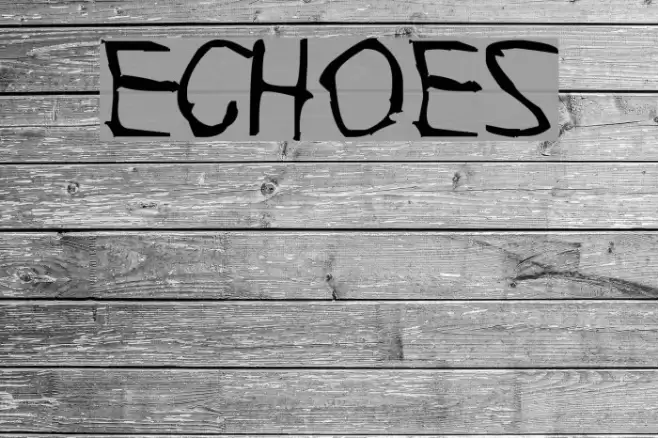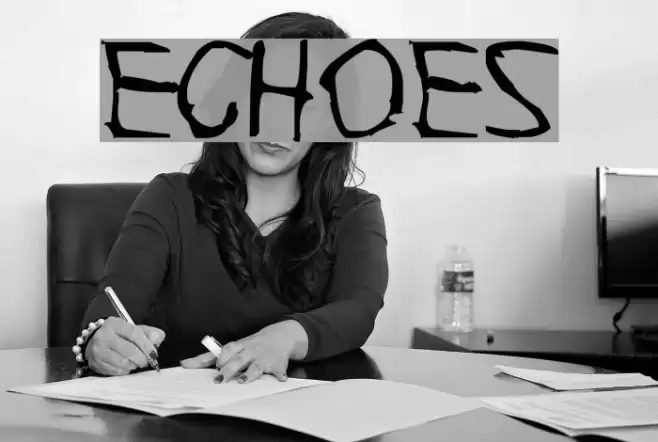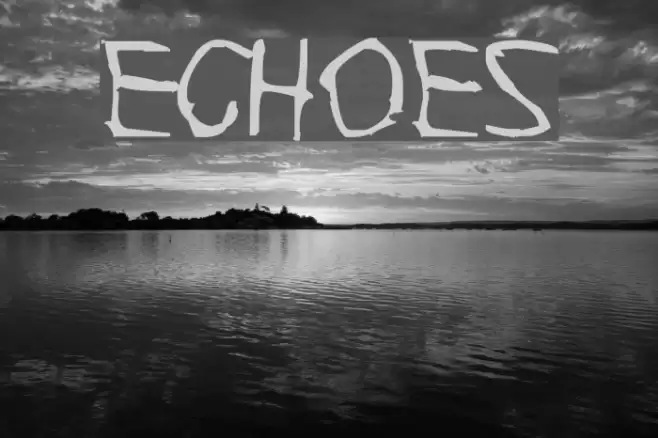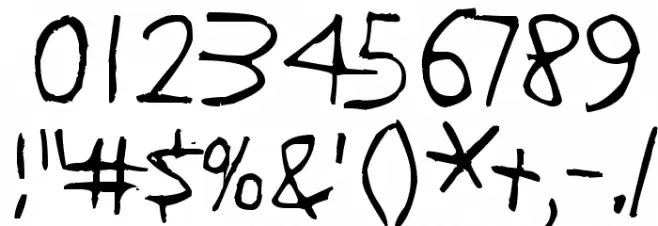
Echoes Font
Echoes Description
This font features a bold, hand-drawn style with a rough, textured appearance that gives it a raw and expressive feel. The characters are uneven, with varying stroke thicknesses and irregular edges, contributing to its dynamic and energetic look. The uppercase and lowercase letters maintain a consistent style, with a slightly chaotic yet artistic flair. Numbers and special characters follow the same design principles, ensuring a cohesive appearance across all elements. This font is ideal for projects that require a personal touch or a sense of spontaneity.
A bold, hand-drawn font with a rough, textured, and expressive style from Uncategorized fonts.
- Proposed Projects: Ideal for posters, album covers, artistic projects, and branding that requires a personal touch.
- Use Case: Headlines, Logos, Artistic projects